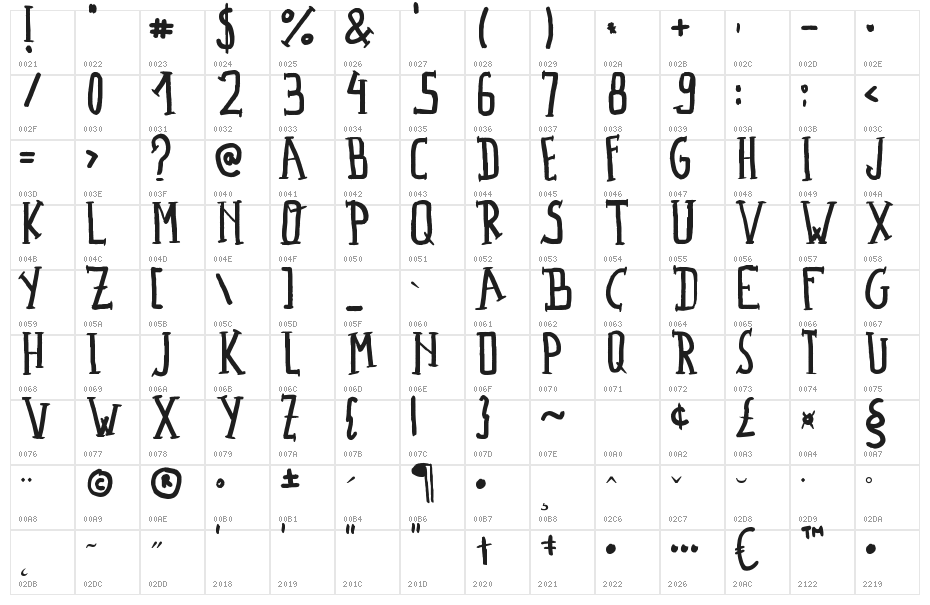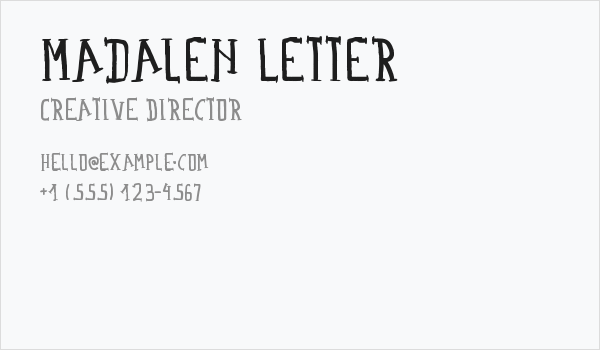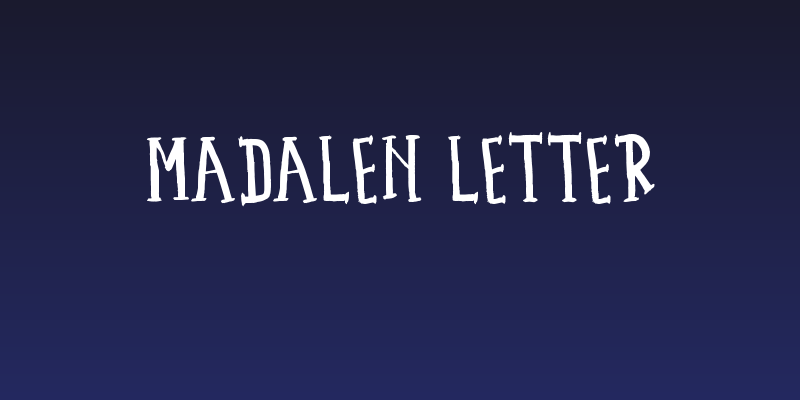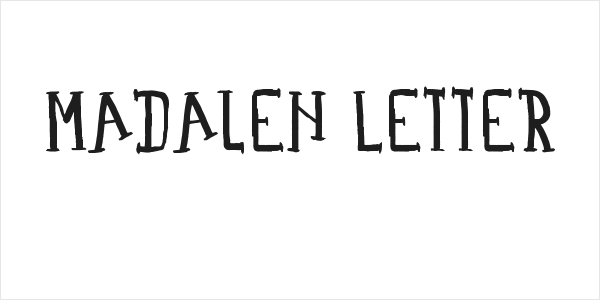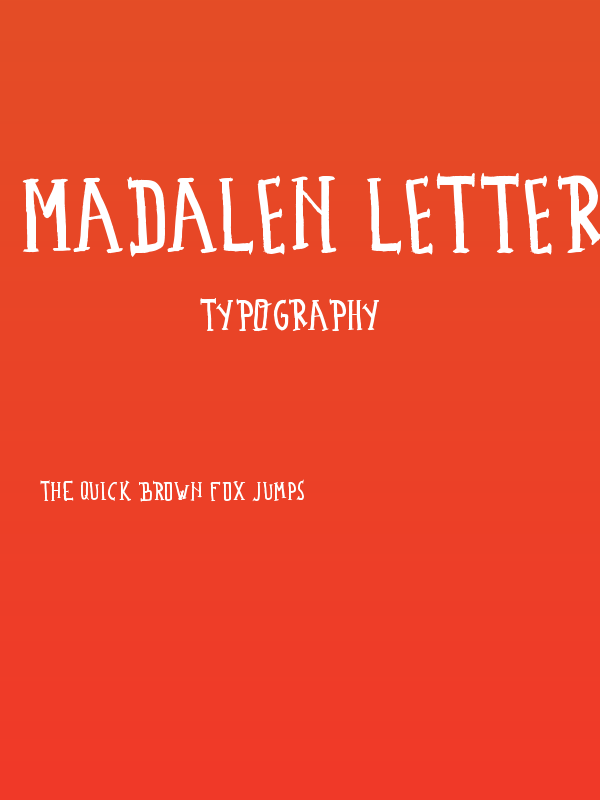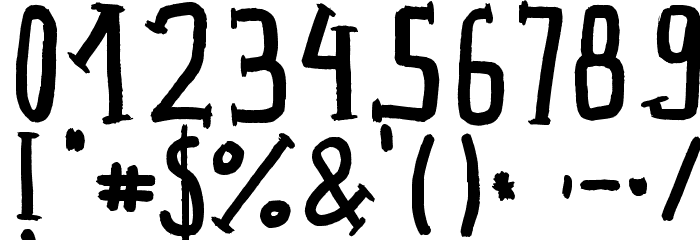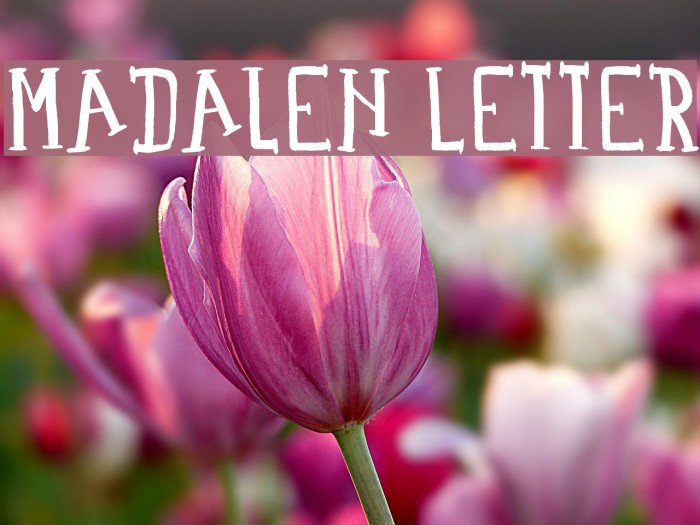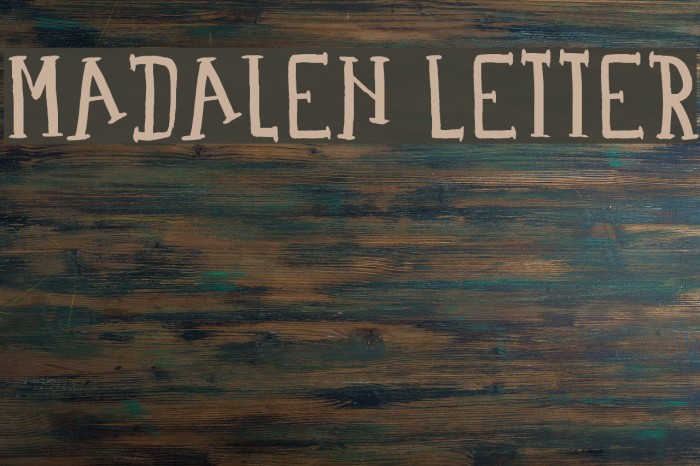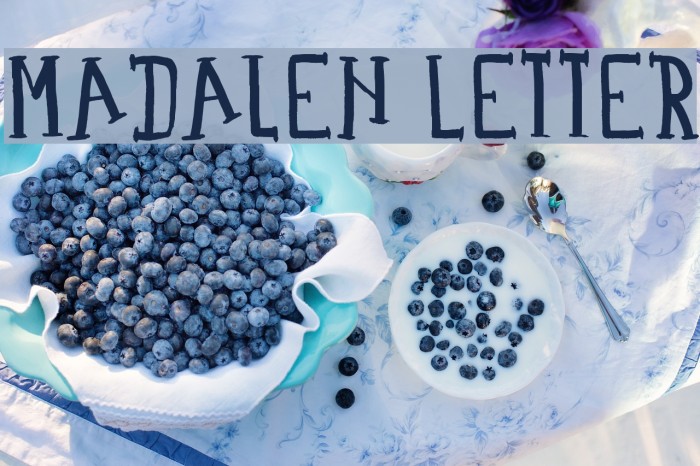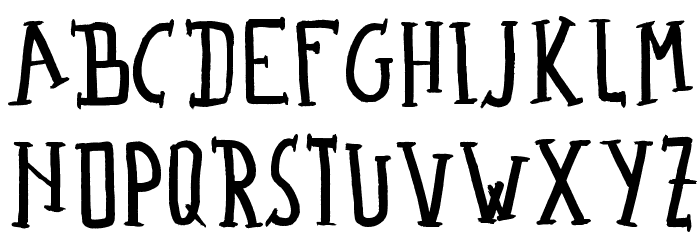
Madalen Letter Font
This font features a distinctive, hand-drawn style with uneven strokes and a slightly rough texture, giving it a rustic and organic feel. The characters are bold and have a playful, whimsical appearance, with varying line thicknesses that add to its charm. The uppercase letters are tall and narrow, while the lowercase letters maintain a consistent height, creating a cohesive look. The numerals are bold and slightly irregular, matching the overall aesthetic. Special characters are creatively designed, maintaining the font's unique style. This font is ideal for projects that require a touch of personality and creativity.
| Proposed Projects | Perfect for creative projects such as posters, invitations, branding, and packaging that require a unique and artistic touch. |